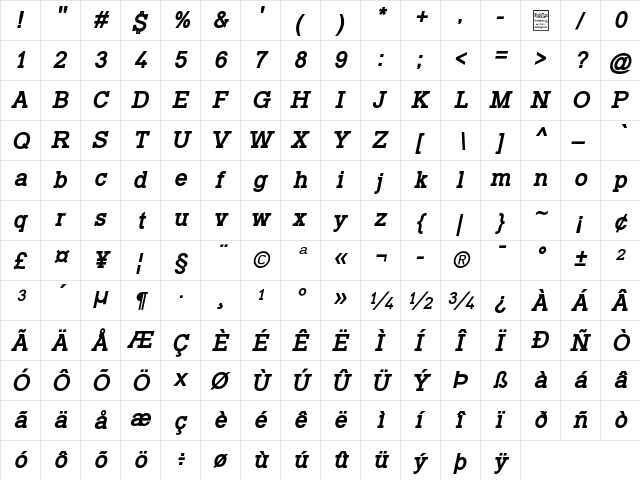
Typo Slab Bold Italic
Design Context for Typo Slab Typeface
Typo Slab features prominent, blocky serifs that give it a confident, grounded presence — equally at home in editorial settings and bold branding work. The slanted form adds forward momentum and visual energy. The heavy weight commands attention and anchors typographic hierarchies.
Works well in editorial design, news publishing, impactful branding, and poster typography.
Pro Tip: Try Typo Slab set tight in headlines for a classic editorial feel. Its slab serifs create strong horizontal rhythm that anchors a page layout.